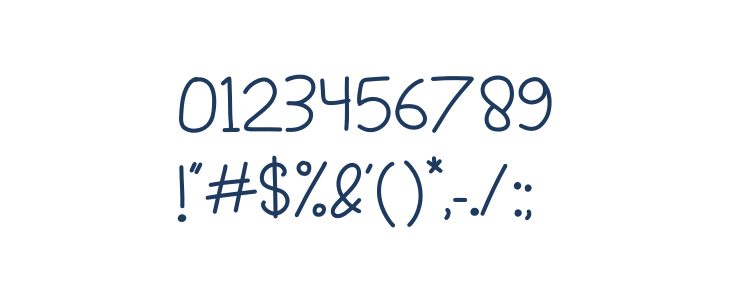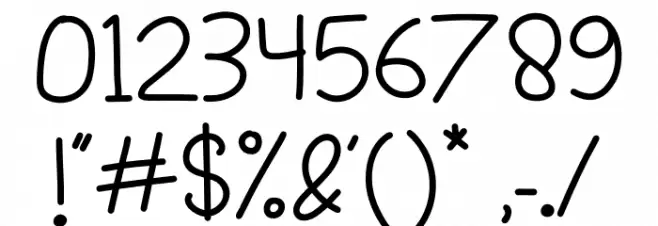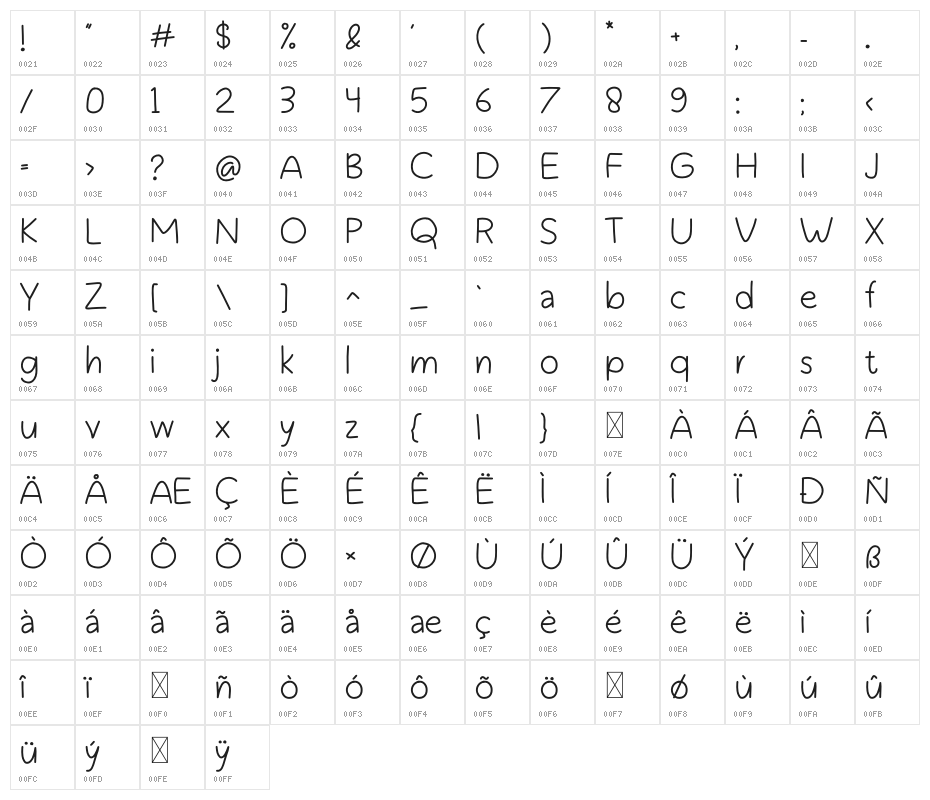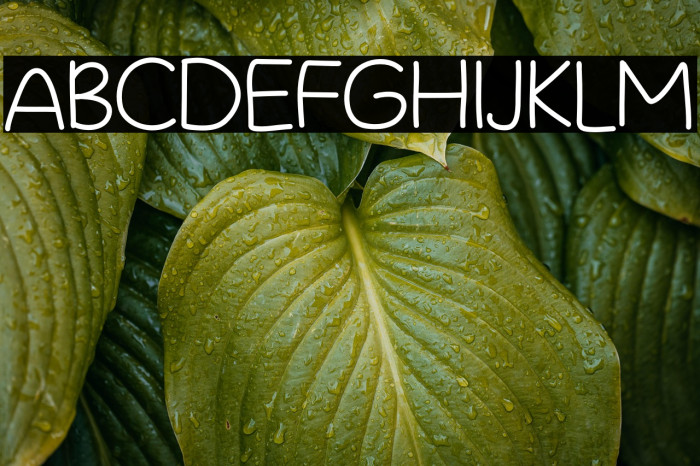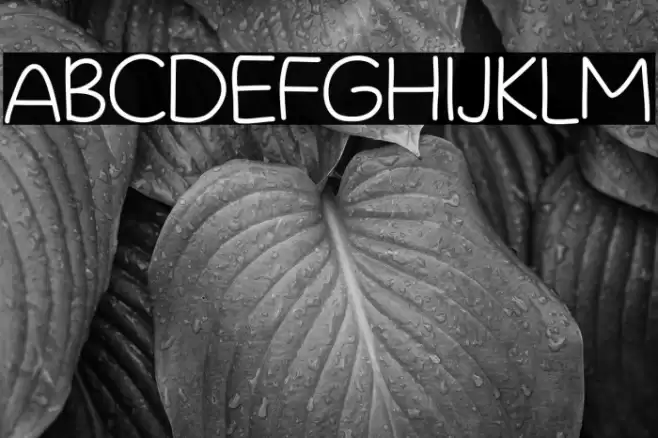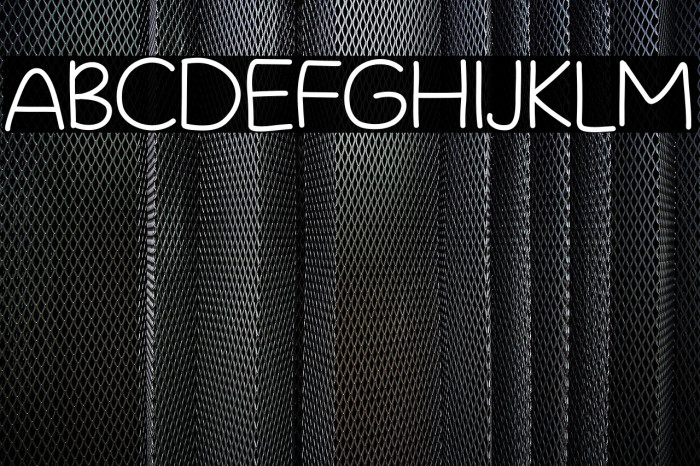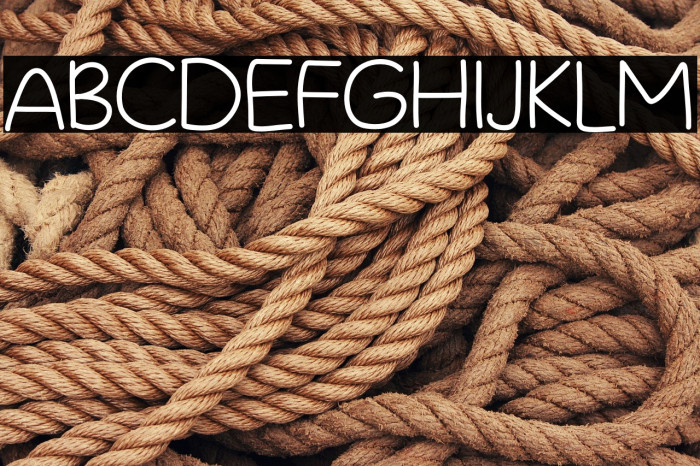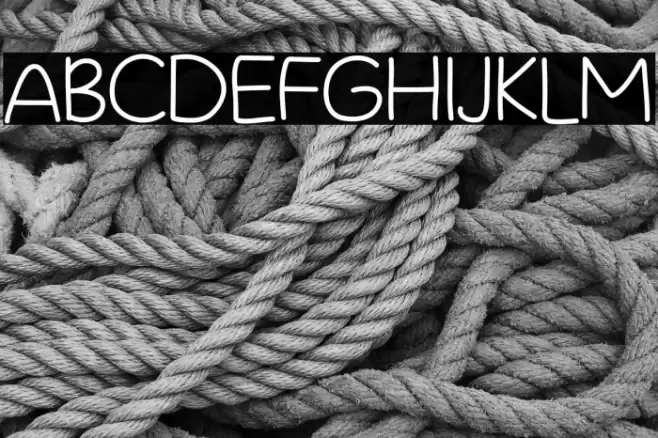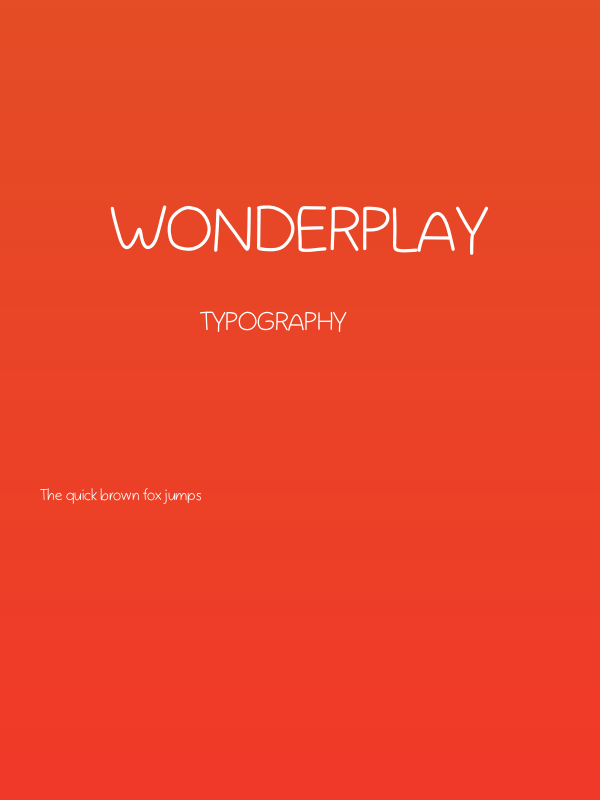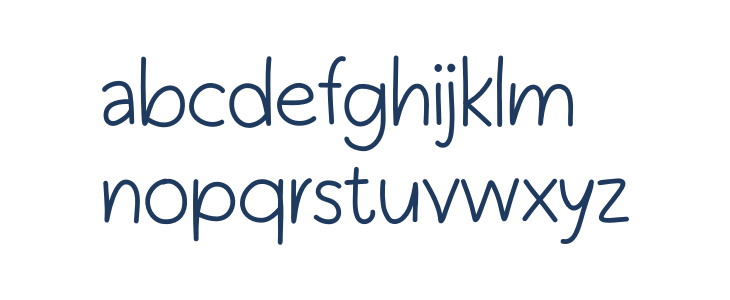
Wonderplay Font
Wonderplay Description
This playful and whimsical font features rounded, smooth edges and a casual, handwritten style. The characters are evenly spaced, providing a clean and approachable appearance. The uppercase letters maintain a consistent height, while the lowercase letters have a slight variation in size, adding to the font's friendly and informal vibe. The numerals are clear and easy to read, matching the overall style of the alphabet. Special characters are included, maintaining the same playful aesthetic. This font is ideal for projects that require a fun and engaging look, such as children's books, playful branding, or casual invitations.
| Proposed Projects | Ideal for children's books, playful branding, casual invitations, and creative projects. |